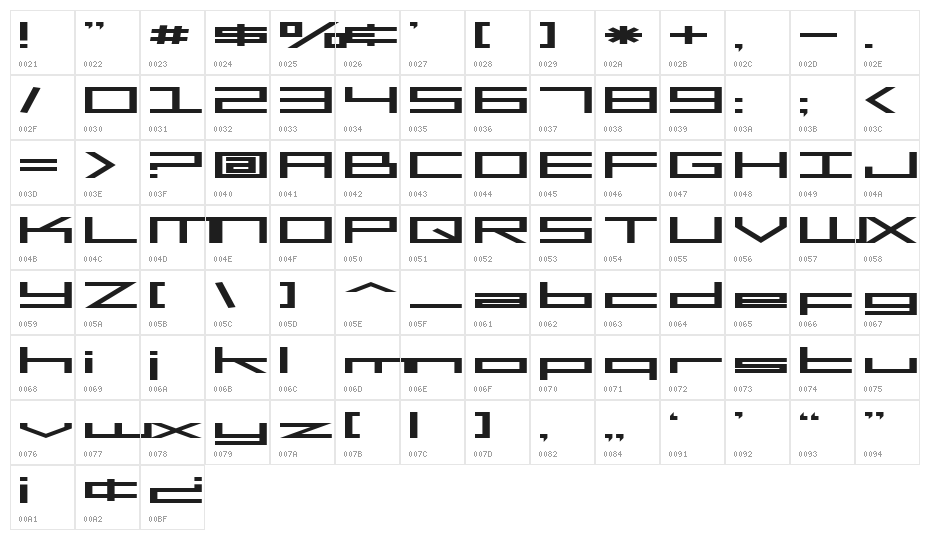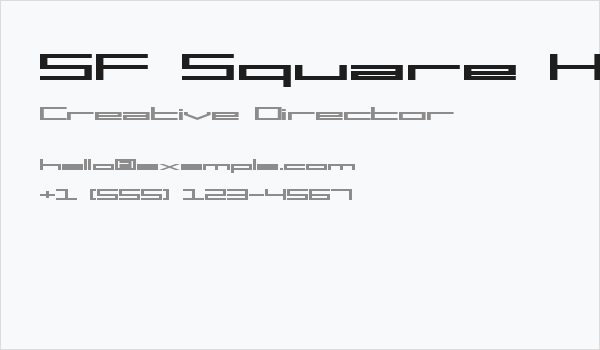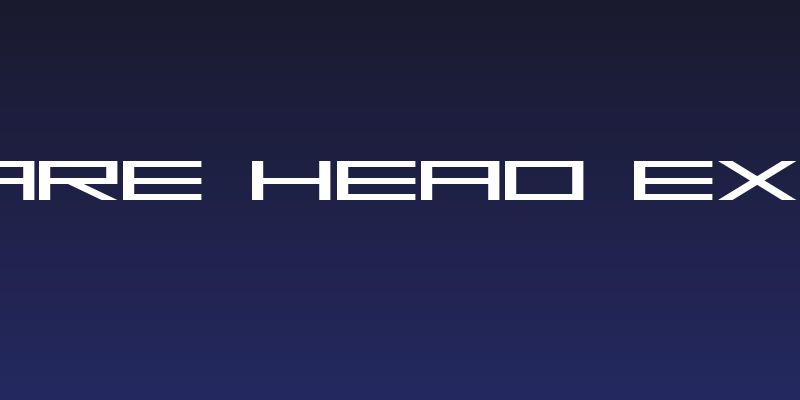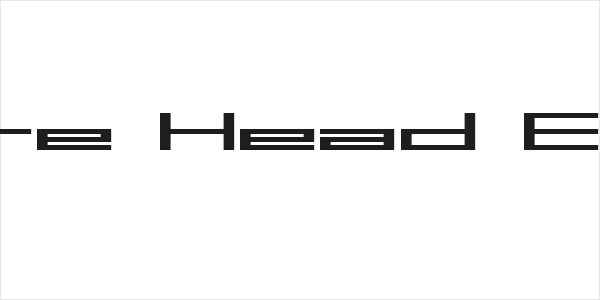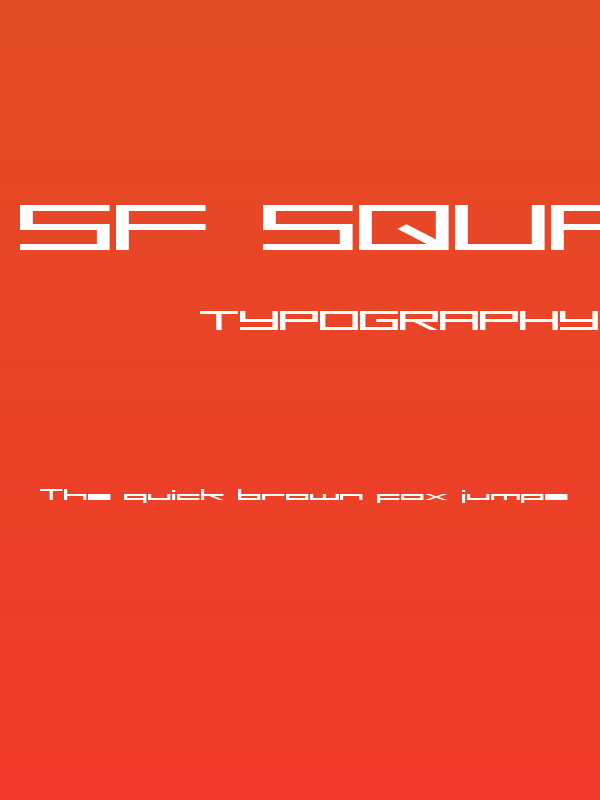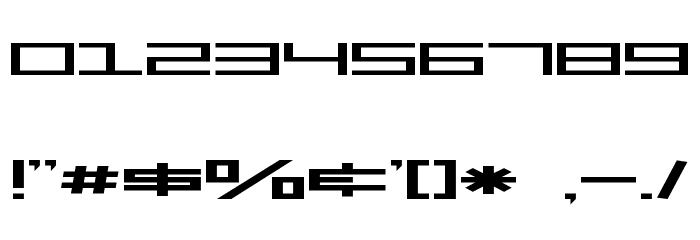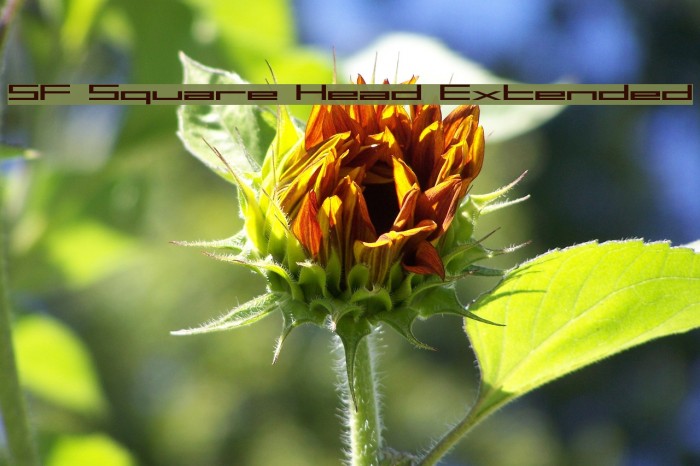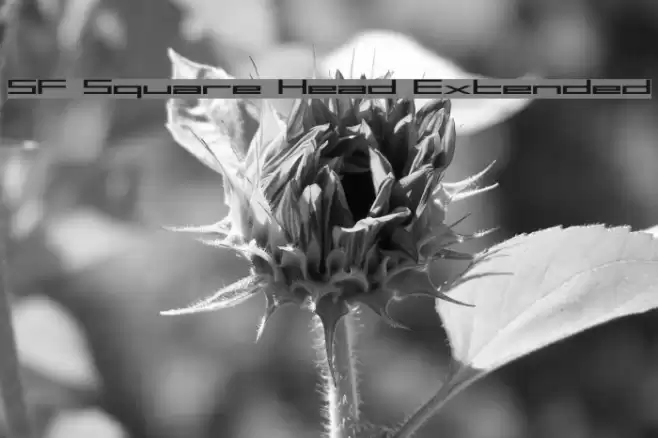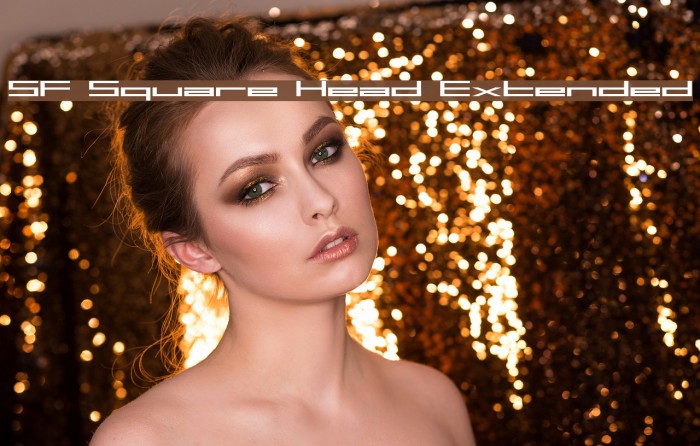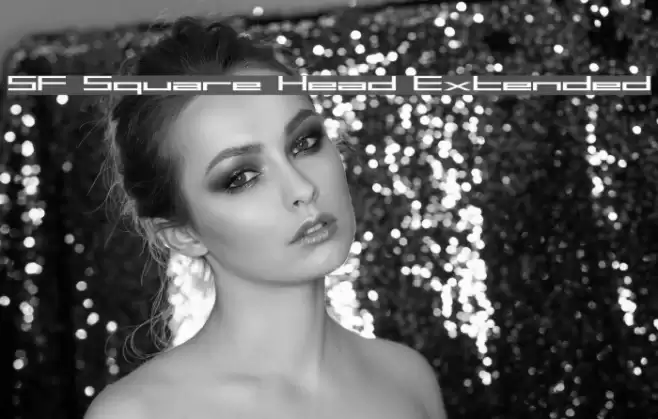
SF Square Head Extended Font
SF Square Head Extended Description
This font features a futuristic and geometric design, characterized by its square and angular letterforms. The uppercase and lowercase letters maintain a consistent height, giving it a uniform appearance. The strokes are bold and consistent, creating a strong visual impact. The numerals and special characters follow the same design principles, ensuring a cohesive look across all glyphs. This font is ideal for projects that require a modern and tech-inspired aesthetic, such as digital interfaces, gaming titles, or sci-fi themed designs.
| Proposed Projects | Ideal for digital interfaces, gaming titles, sci-fi themed designs, and tech branding. |